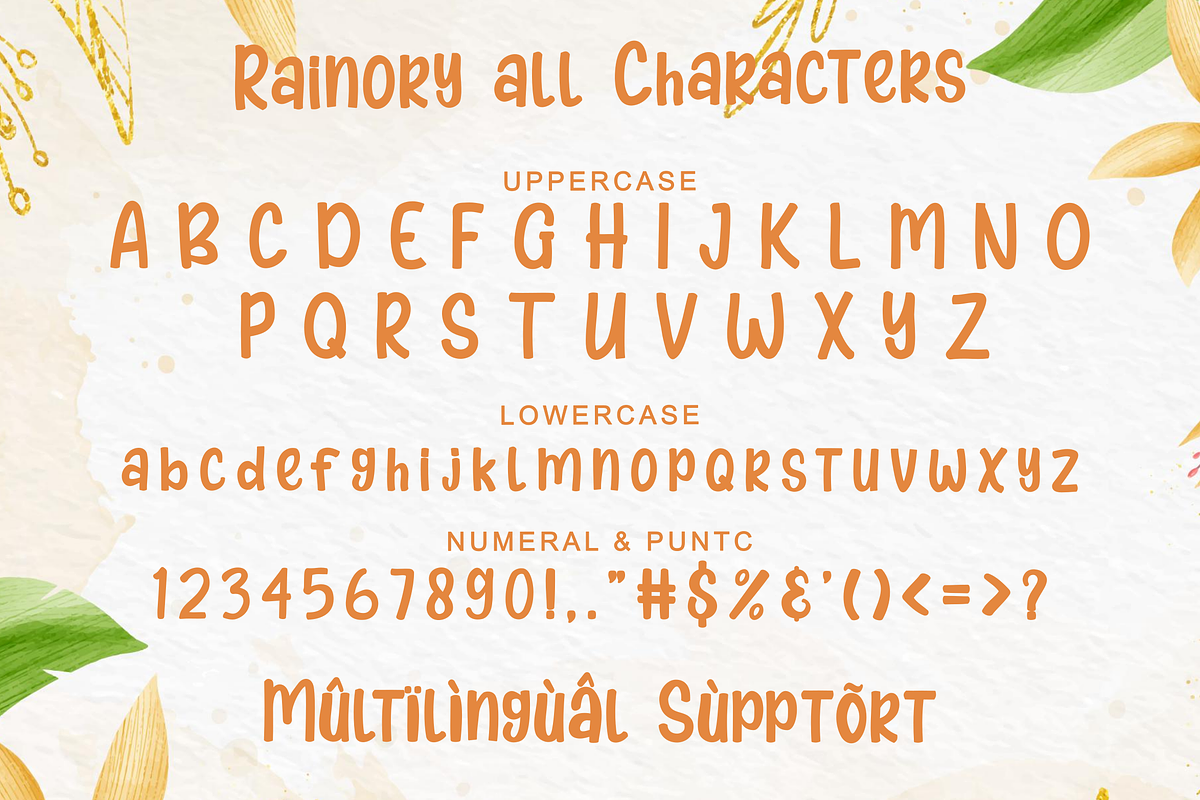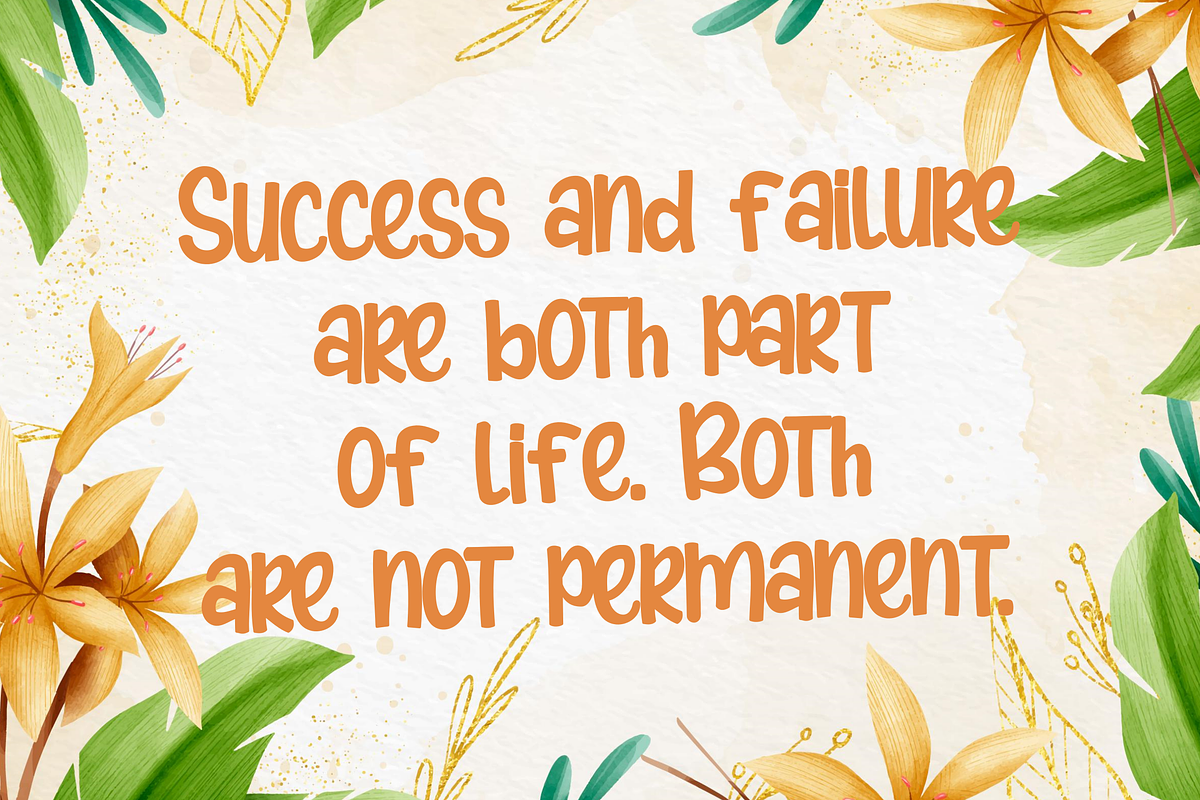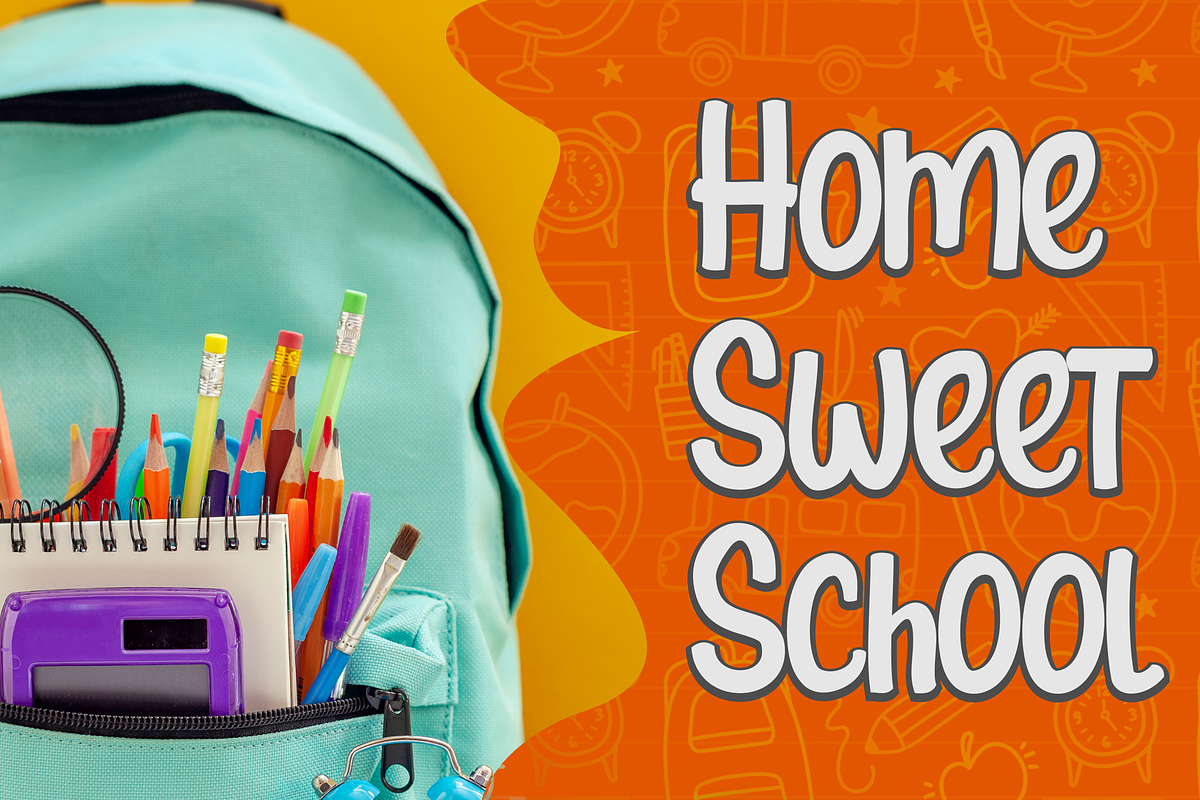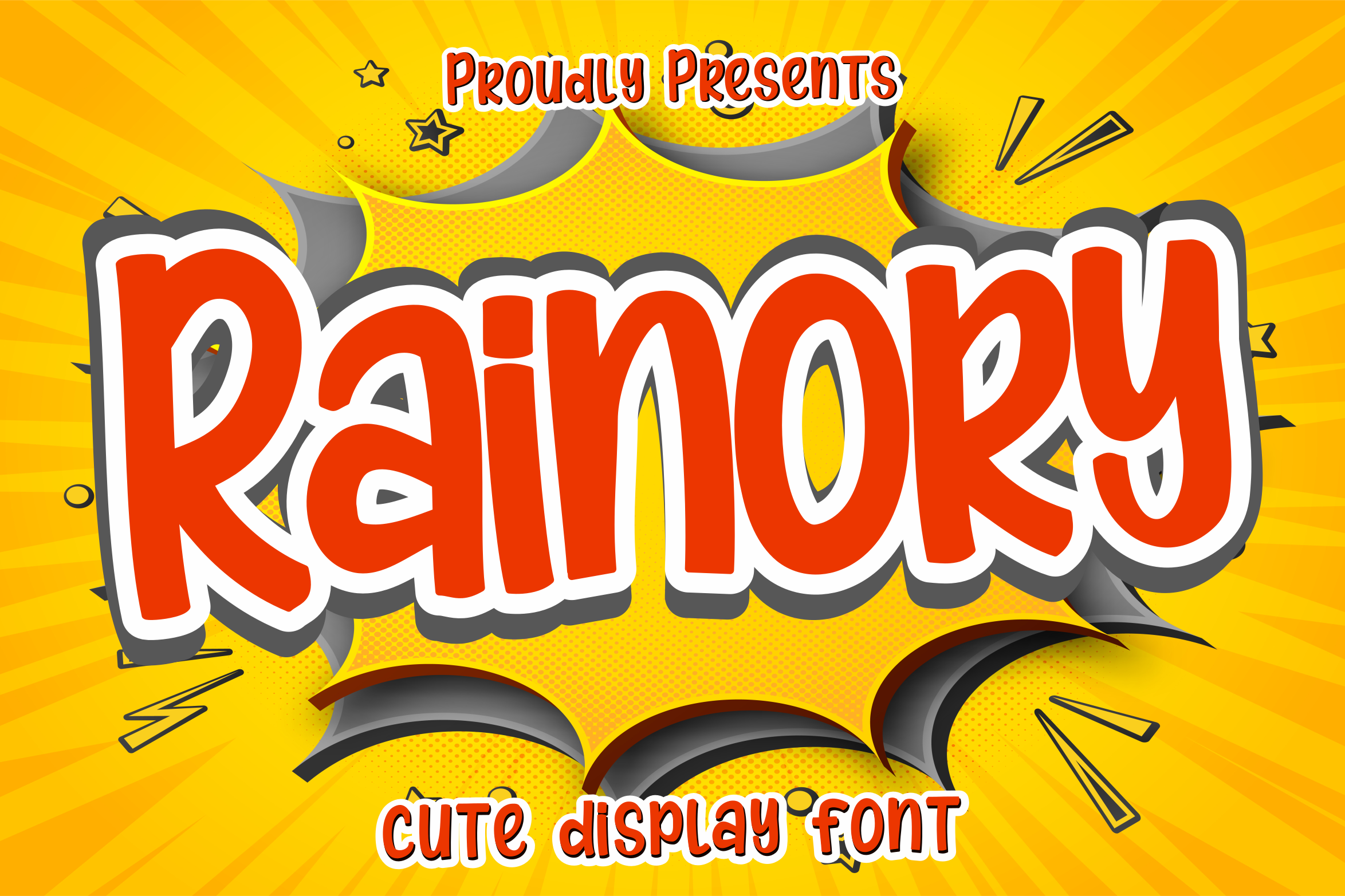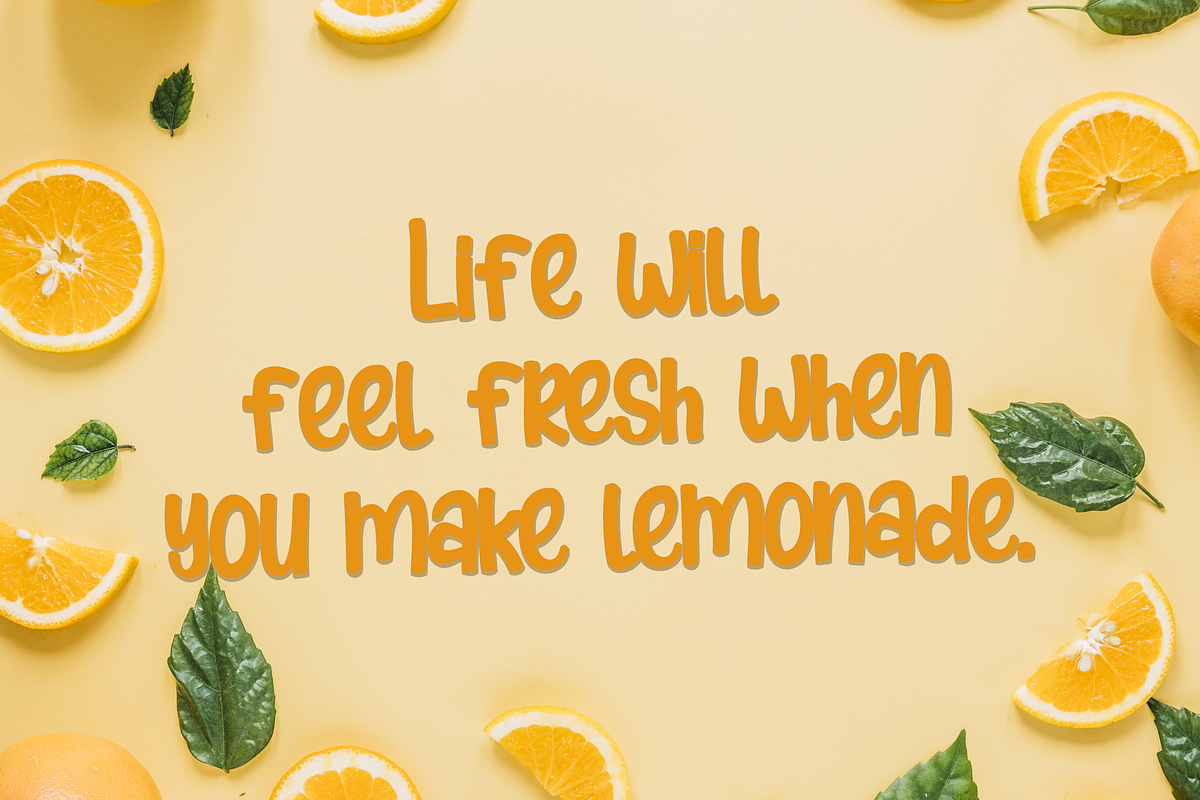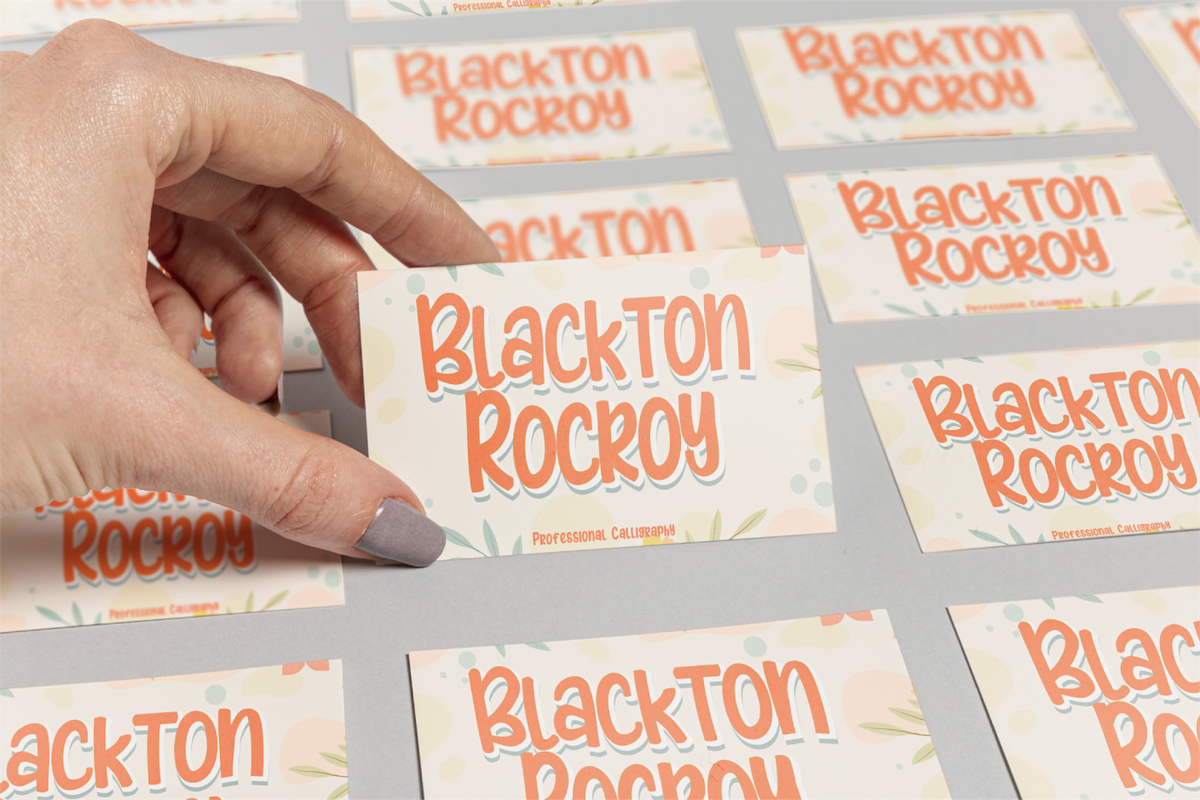
Rainory-Child kid fun font display
Rainory embodies fun, uniqueness and authenticity. This dazzling handwritten font will turn any creative idea into a standout. Get inspired by its authentic feel and use it to make beautiful wedding invitations, beautiful stationery art, eye-catching social media posts, and cute greeting cards. The only limit is your imagination!
Uppercase Supports international languages that include numerals, punctuation, multiple headings, alternative styles, and can be accessed in the Adobe Illustrator Glyphs panel, or under Stylistic Alternates in Adobe Photoshop OpenType, Adobe InDesign, Corel Draw, and even works in Microsoft Word. TTF, OTF files.